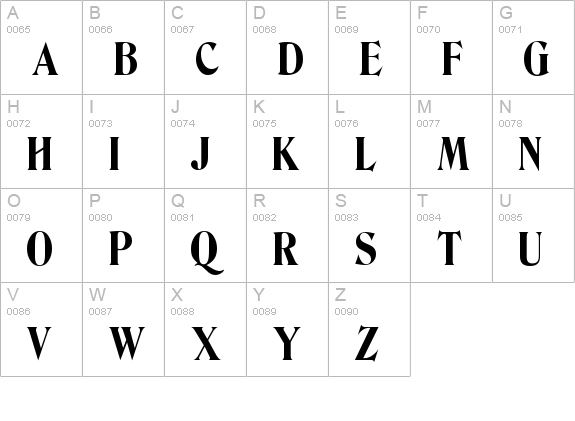
Bernase Regular is the standard, neutral variant in the Bernase typeface family \xE2\x80\x94 well suited to general body text, paragraphs, and standard typographic work.
The Bernase Regular font exudes a sense of modern elegance and sophistication. With its clean lines and sleek design, this versatile typeface is perfect for a wide range of design projects. Whether you're creating a sleek logo, designing a chic invitation, or crafting a stylish website, Bernase Regular is sure to make a lasting impression. What sets Bernase Regular apart is not just its aesthetic appeal, but also its accessibility. This high-quality font is available for free download at FontsMarket.com, making it easy for designers of all levels to access and use. The smooth curves and balanced proportions of Bernase Regular make it a standout choice for anyone looking to add a touch of class to their designs. With its timeless appeal and effortless style, Bernase Regular is a must-have font for any designer's toolkit. Download it for free today and elevate your projects with this sophisticated typeface.